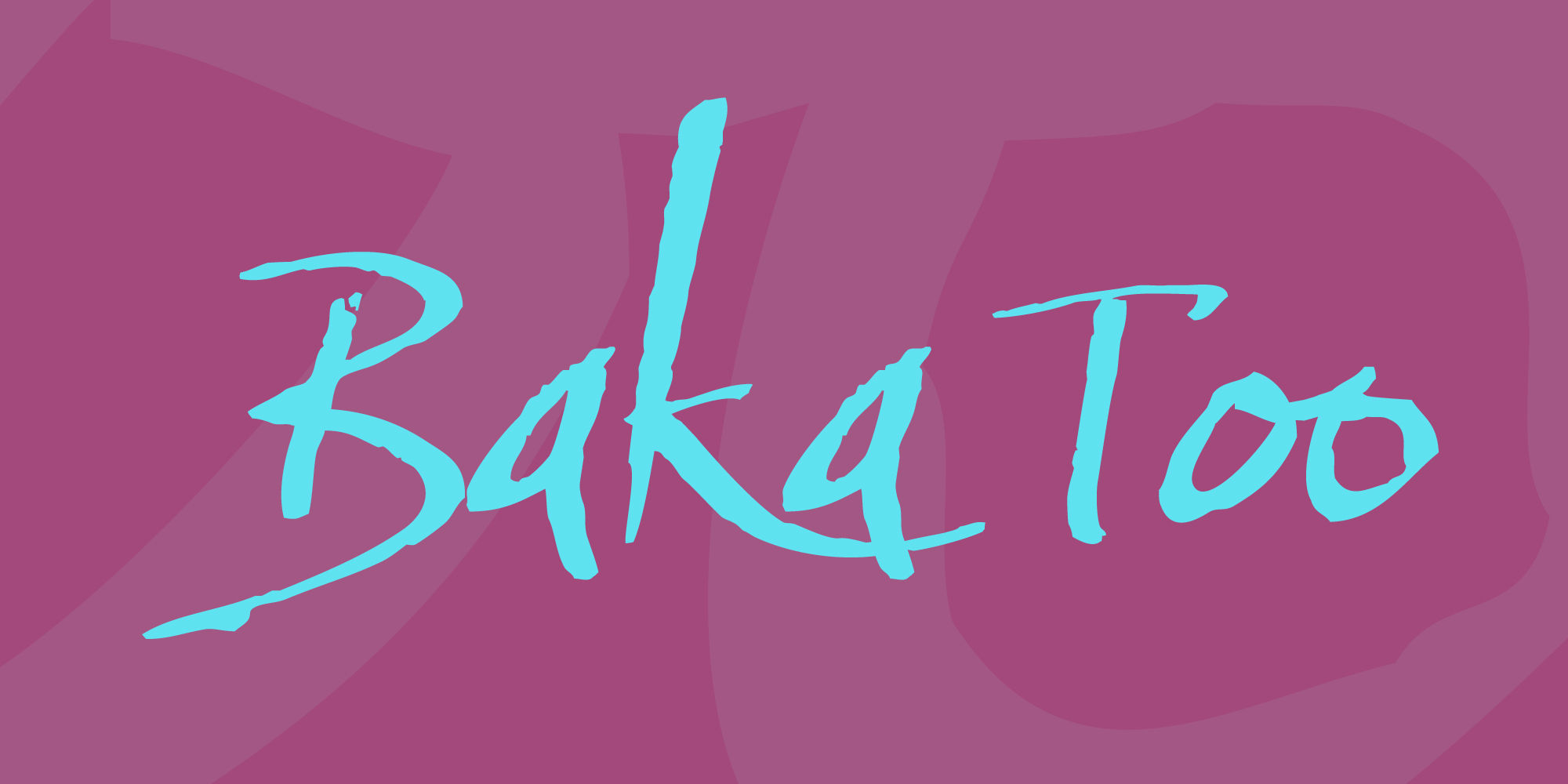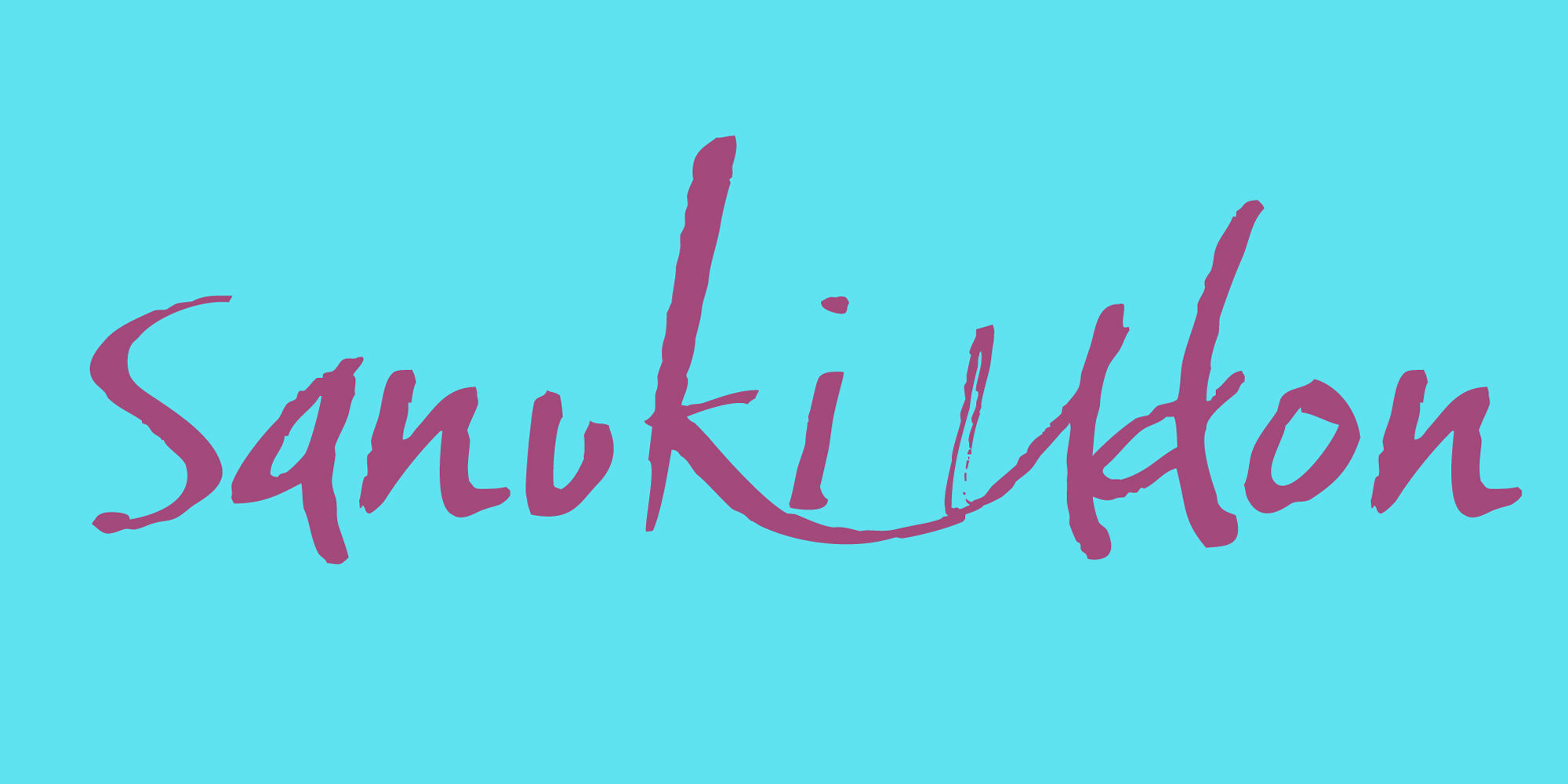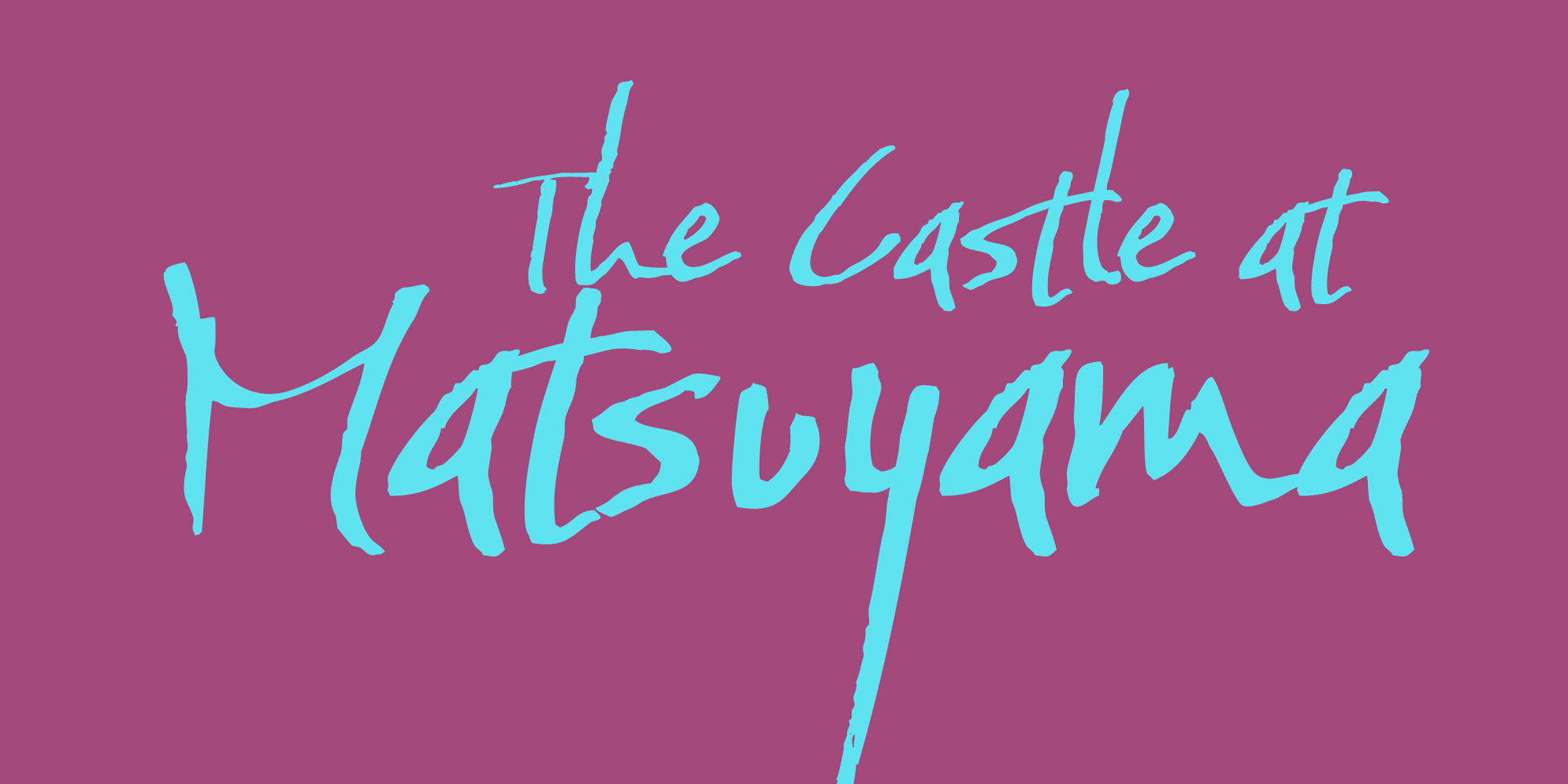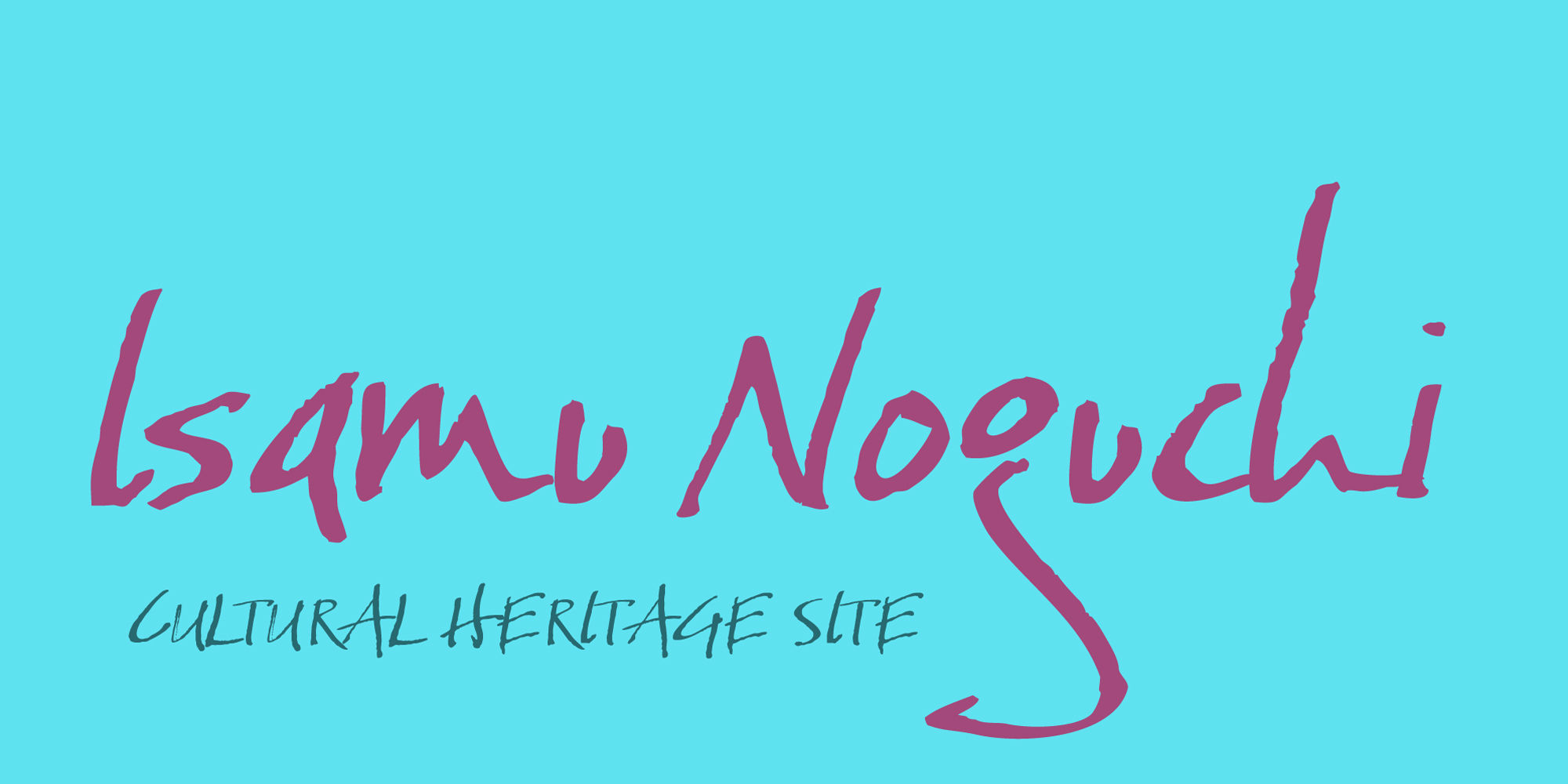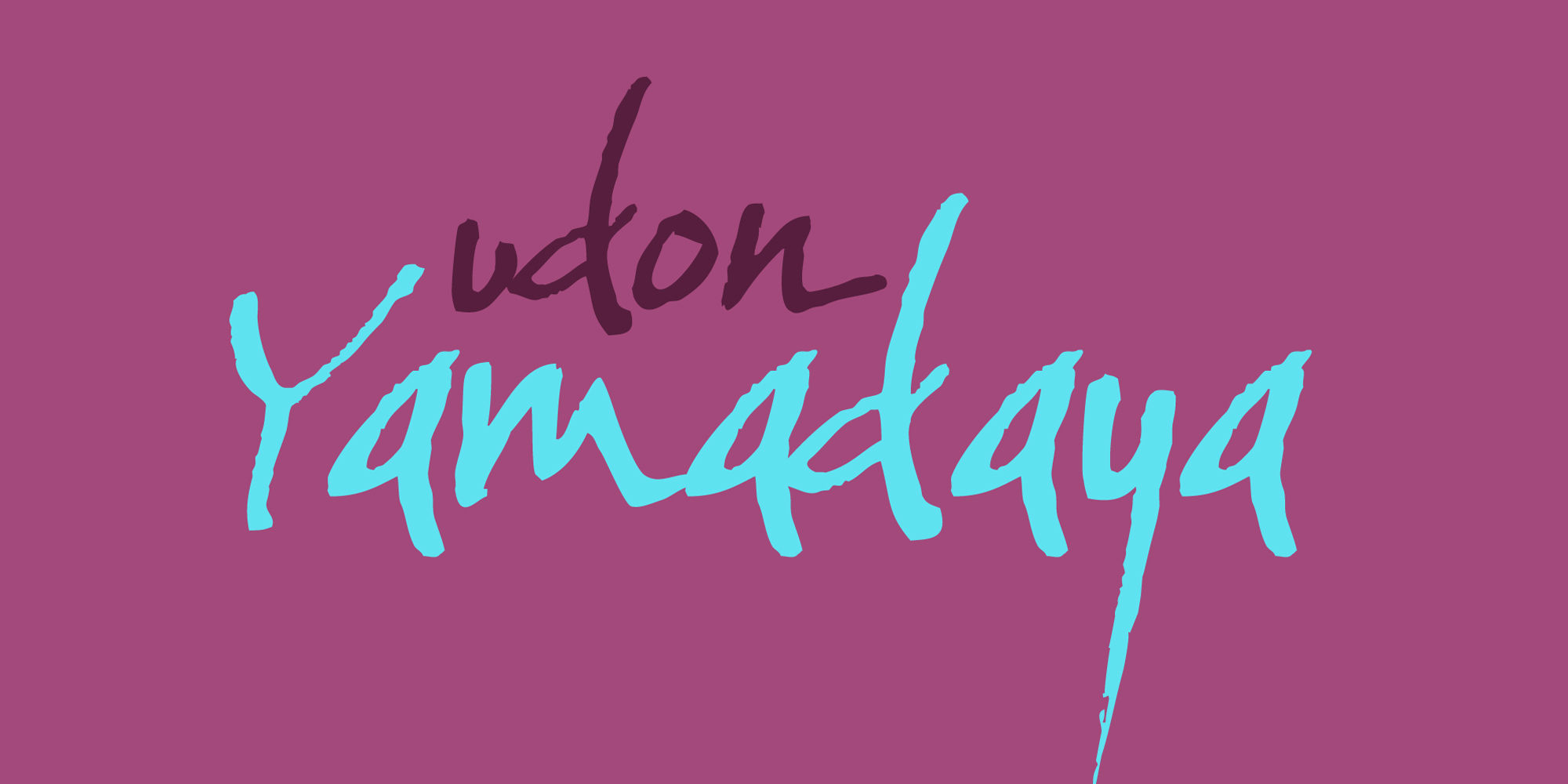
Baka Too
ffi fft ttr
Standard Ligaturesliga
ffr tt tr
Discretionary Ligaturesdlig
K L M O S y
Stylistic Alternatessalt
A deeper dig into the exemplars that led to the creation of Baka. This simple typeface has a secret—behind that nonchalant attitude is a ton of Stylistic, Swash, and Titling Alternates. It even contains 44 special ligature combinations to insure you have the smoothest entrance possible.